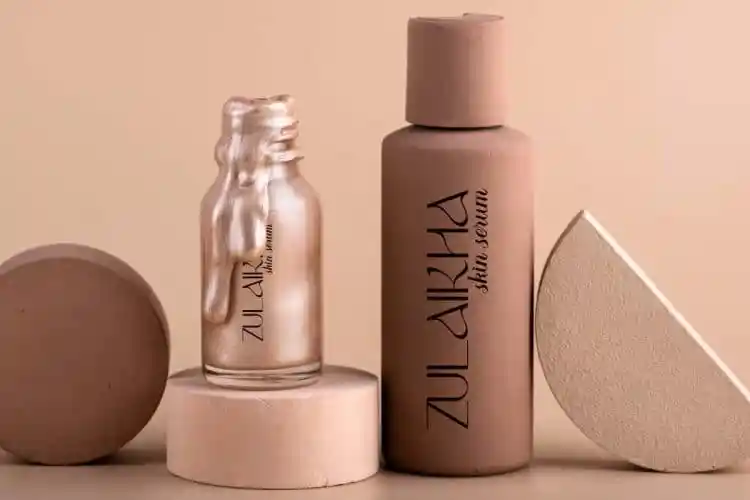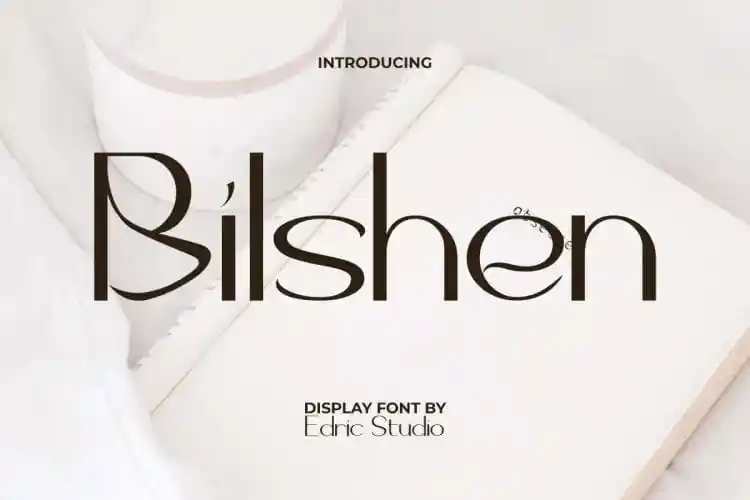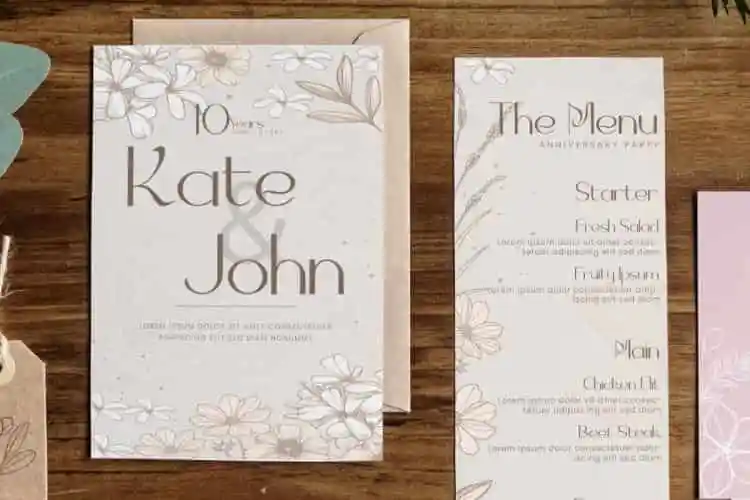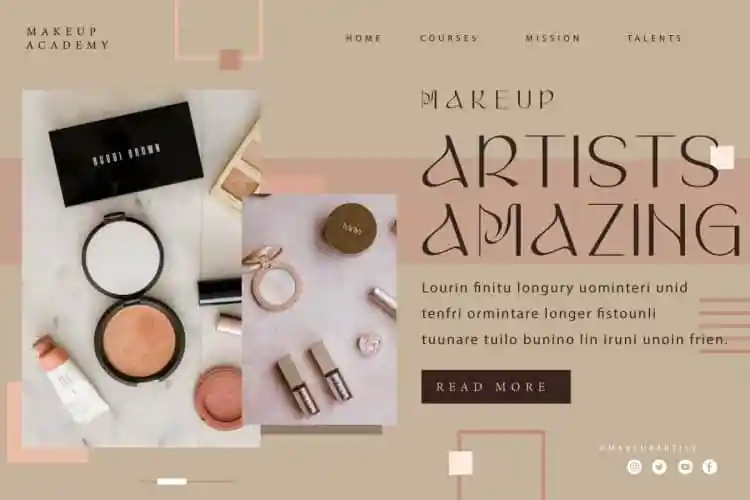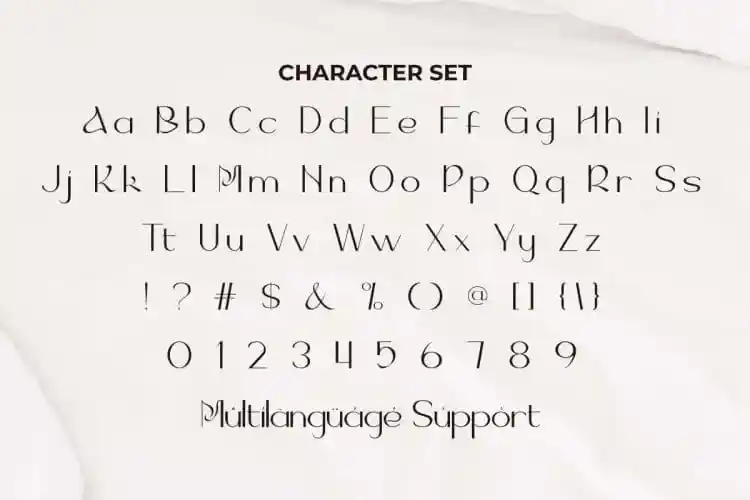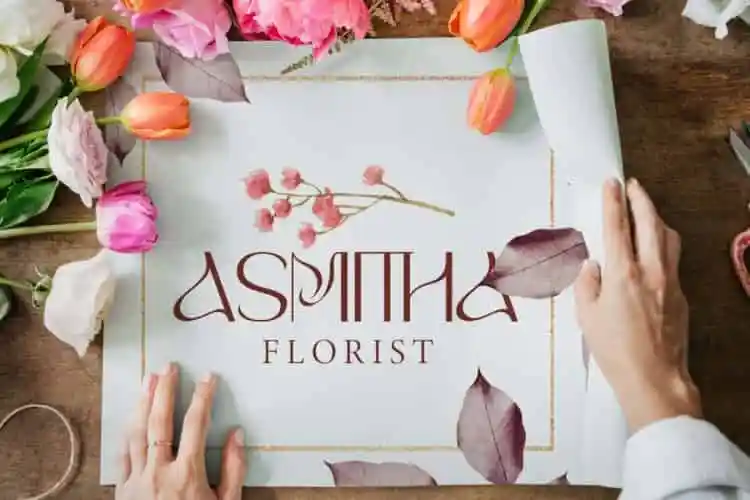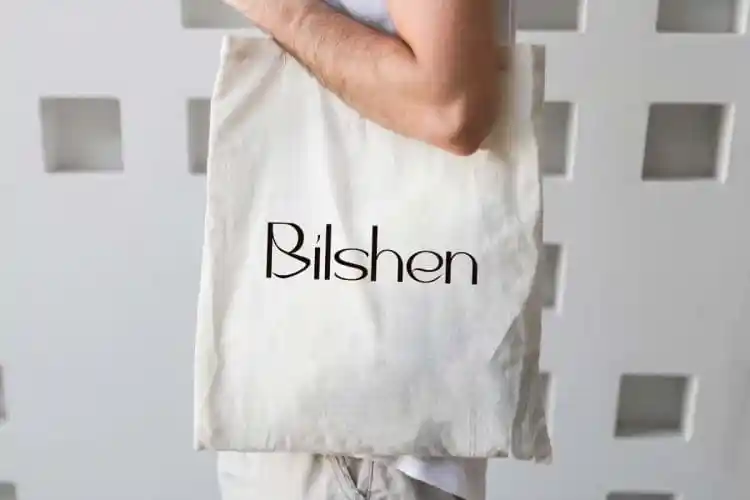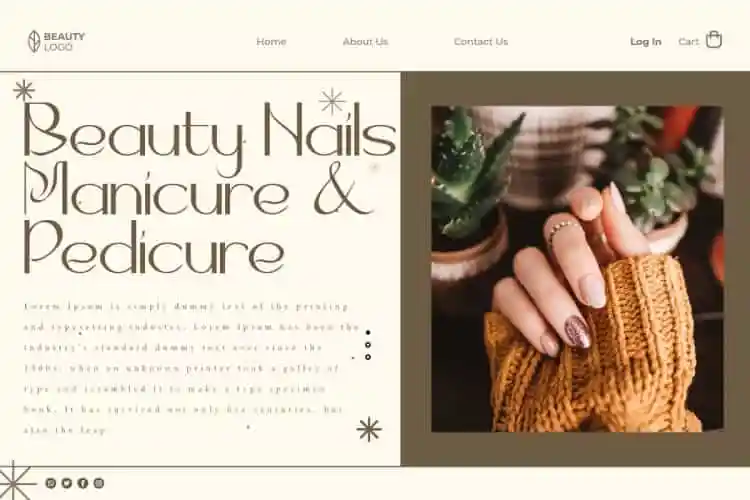
Bilshen Font is a creative display font with a stunning typeface that combines sleek characteristics and beautifully crafted exotic curves, making it an ideal choice for creating elegant and sophisticated designs. Therefore it will be good for billboards, blogs, brand logo, brochure, cover, custom bag, flyer, greeting card, wedding invitation, posters, product packaging, quotes, website, and others. In a matter of seconds you can add a new style.
Bilshen Font contains a complete set starting from Uppercase and Lowercase Letters, Numbers, Punctuation, and Symbols. This stunning font can elevate to perfection your work through its clean and classic visuals. Flexible in whatever your business identity is, such as advertising, clothing brand, content creator, cosmetic, event/celebration, fashion, florist, makeup artist, salon, skincare, and anything that needs a finishing touch with a subtle handmade look.
Bilshen Font also supports multilingual characters which are ready to use either on Windows or Mac machines with a simple installation. Combine different characters for a bespoke, handcrafted feel. It’s tested to work well in the Adobe Apps (Illustrator, Adobe InDesign, Adobe Photoshop) even work on Microsoft Word. All of these characters are available through the glyph panel, moreover each letter has its own unicode (PUA) so you can access all the characters easily.